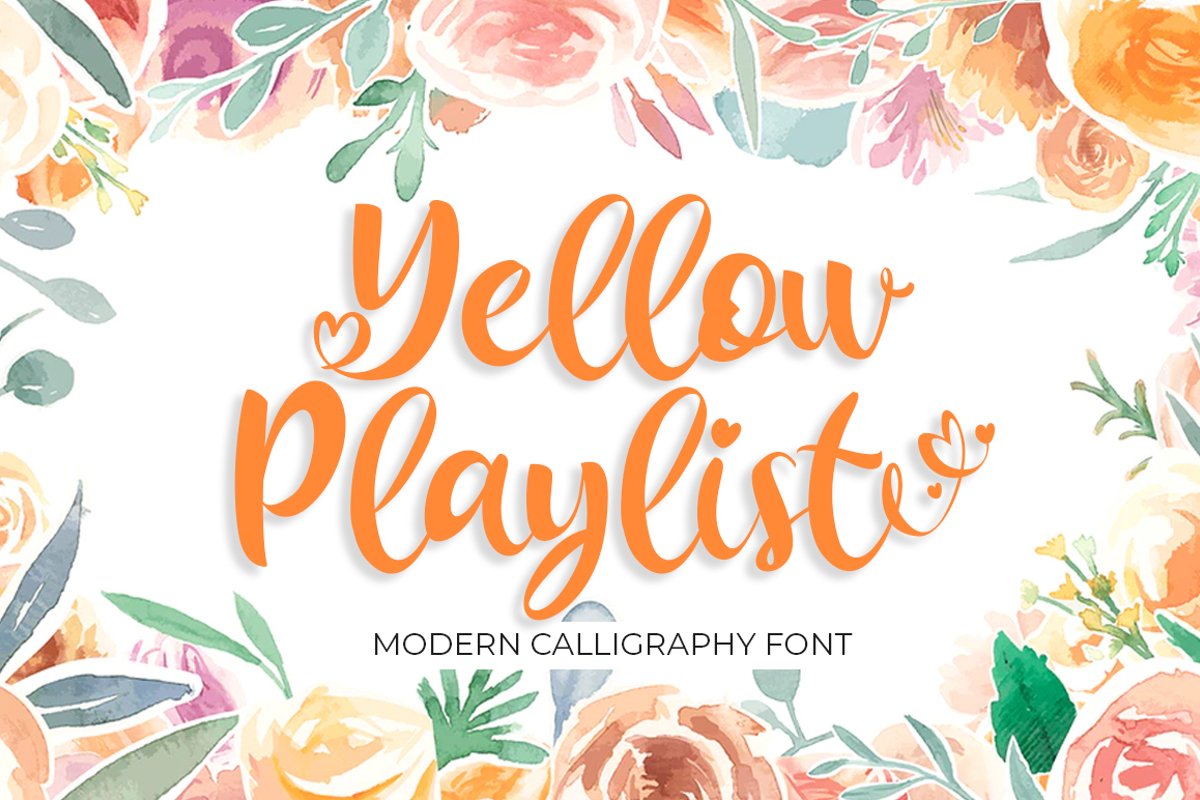
Yellow Playlist
Yellow Playlist is an incredibly stunning script with beautiful letters and extravagant swashes. Fall in love with its romantic charm!